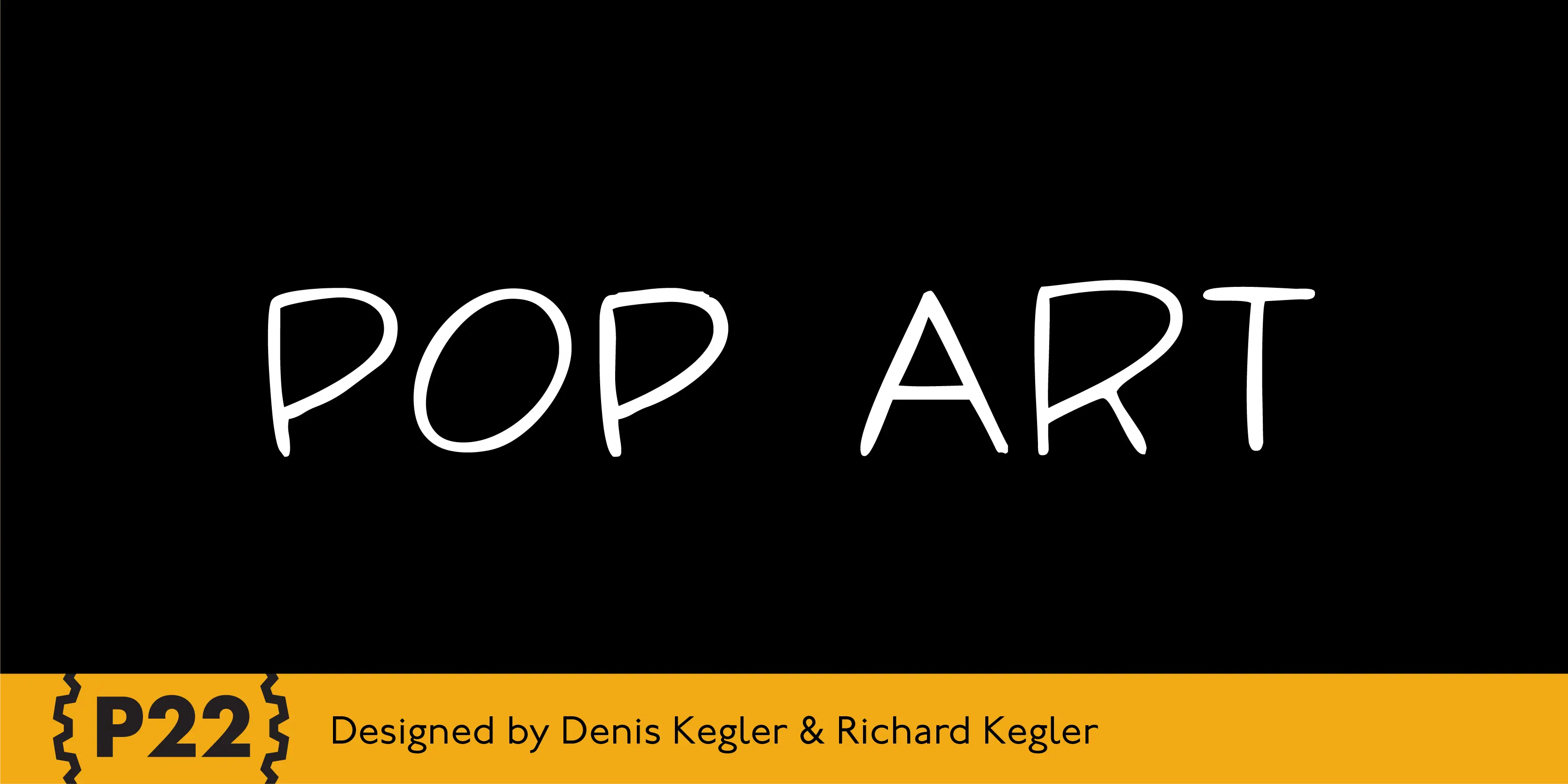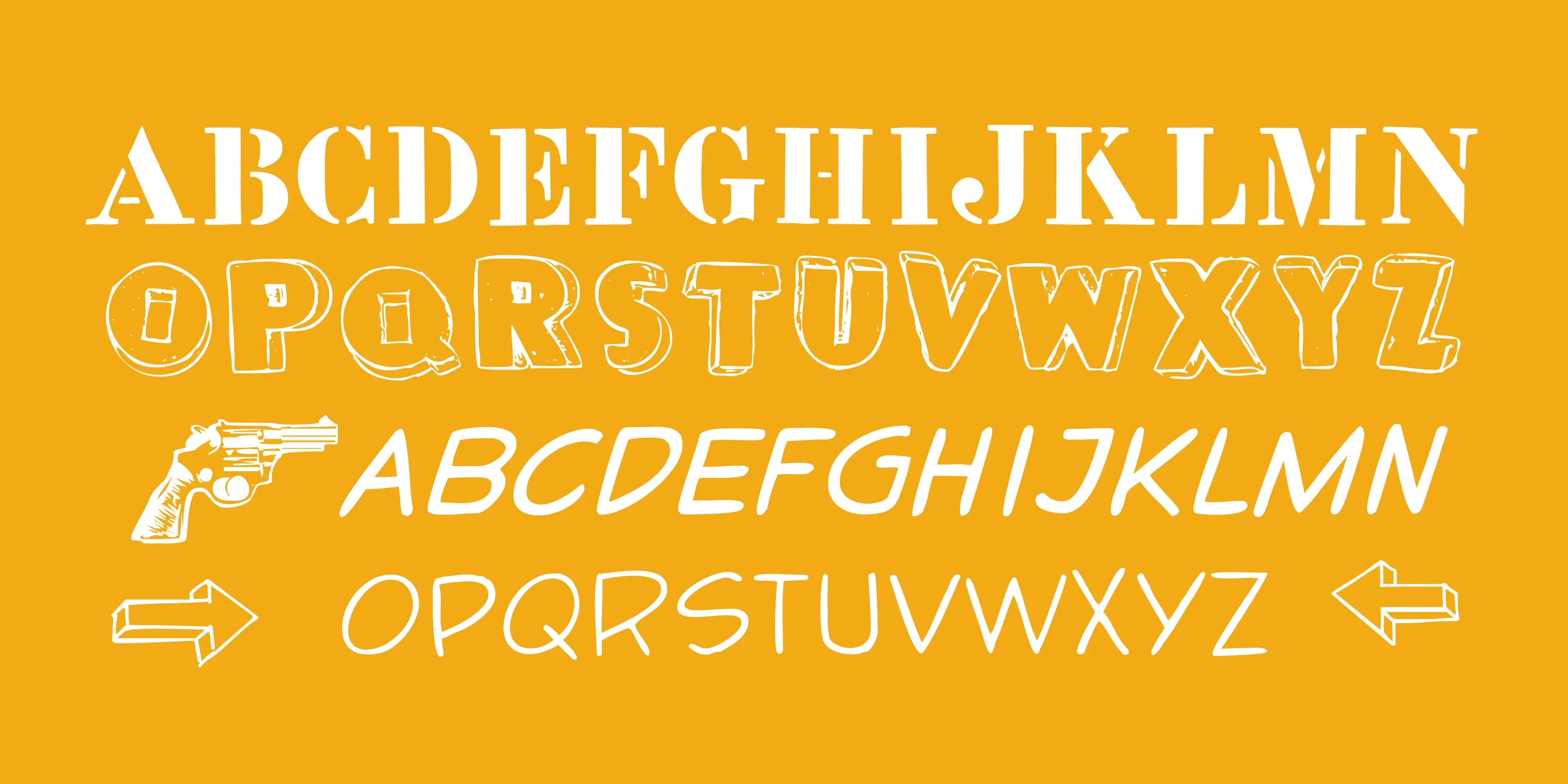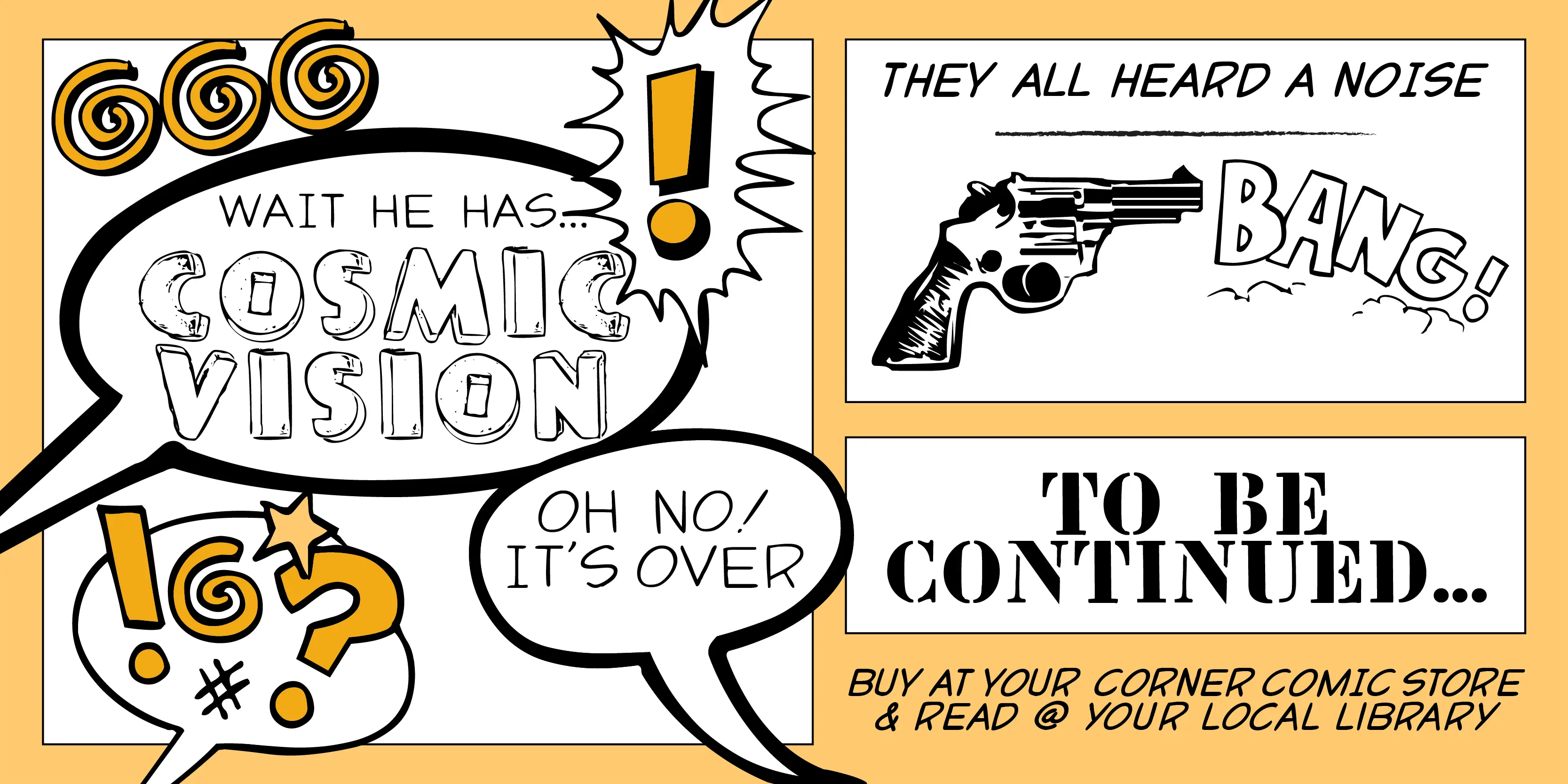
Pop Art Font Family
Pop Art Comic
Pop Art Stencil
Pop Art ThreeD
Pop Art Comic Bold Italic
Pop Art Extras
Pop Art
The Pop Art font set was developed for the Albright-Knox Art Gallery and is inspired by their collection of Pop Art. Artists such as Warhol, Lichtenstein, and Rauchenberg sought to blur the lines between high and low art as well as the boundaries between art and everyday life. The alphabets and Extras in this set reflect that spirit.